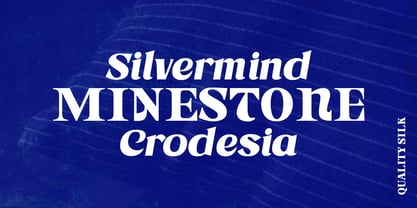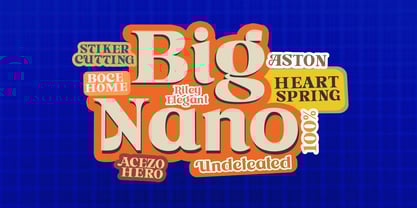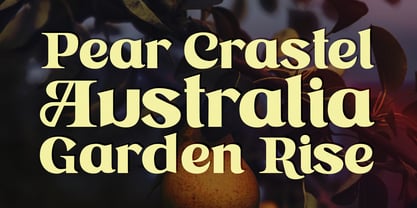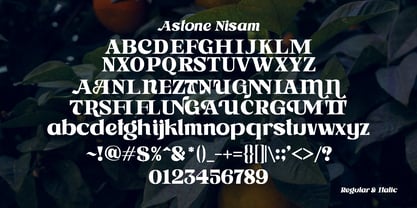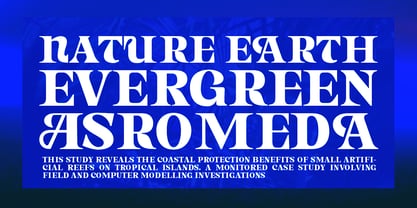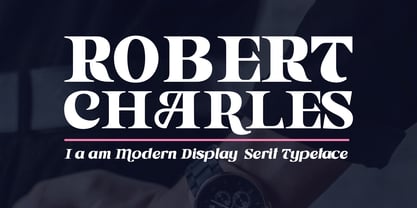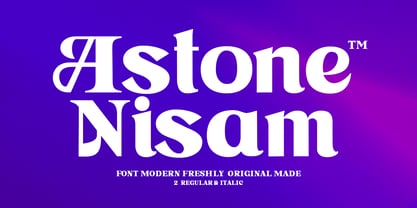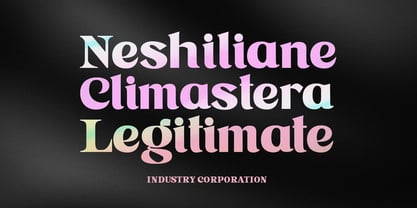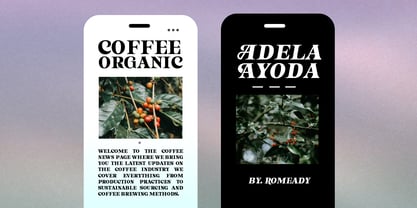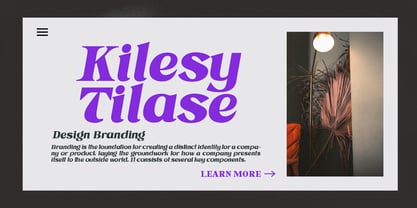
Astone Nisam
by Gatype
The Astone Nisam Font Family was designed by khaidir and published by Gatype. Astone Nisam contains 2 styles.
Astone Nisam Confident Serif is an elegant, modern, and contrasting serif and italic font. It has a very attractive, free-flowing style. This versatile font is perfect for any project, contrasting, modern, and easy to read. With it, you can create logos, use it in advertisements, packaging, book and magazine covers, titles, descriptions, and more.
Astone Nisam has multilingual support for various languages.